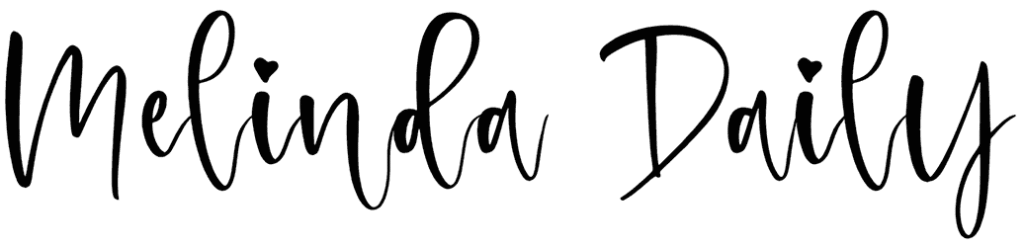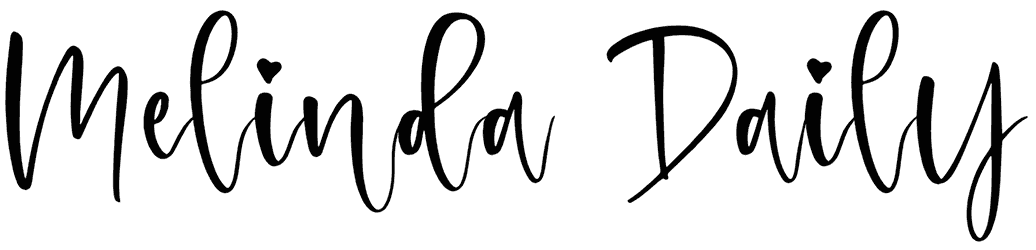
Melinda Daily Font
Melinda Daily gives you a beautiful item to adorn your context with an adorable and elegant vibe. This calligraphy font has a modern and chic face for your projects, such as greeting cards, planners, Valentine’s designs, and much more. As an A-Z font with two versions, Melinda Daily is one of the soundest choices to make your design ravishing.